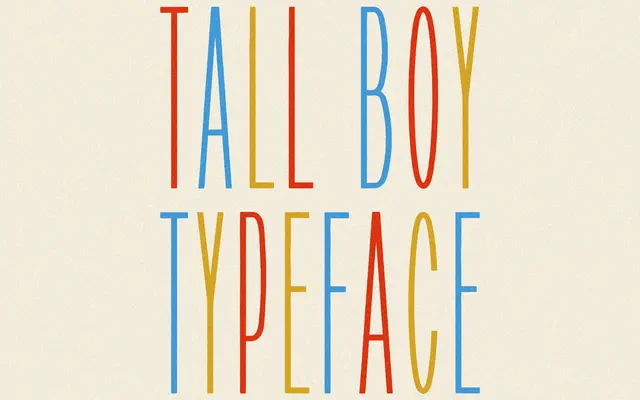
Tall Boy
A single-weight condensed display face inspired by Road Runner, designed for headlines and branding work that needs a tall, narrow presence.
Built as a deliberate counterpoint to wide, heavy display typefaces, Tall Boy draws inspiration from Road Runner to deliver a tall, slender silhouette suited to posters, logos and packaging. It ships as a single Regular weight with basic Latin coverage and a limited set of accented characters across 151 glyphs. Licensing is flat-rate with no seat counts or traffic caps, covering commercial use for individuals and teams up to 50 employees.
Described as inspired by Road Runner and positioned as a tall, narrow counterpart to wide display typefaces, placing it firmly in the condensed display category suited to headlines and branding.